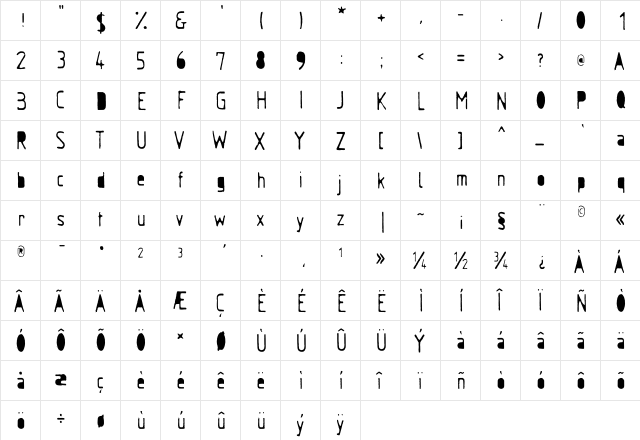
AlphaRuler Bold
Design Context for AlphaRuler Typeface
AlphaRuler takes a measured approach to typography — its balanced proportions and neutral character make it a reliable workhorse for both digital and print work. Its bold stroke weight gives it real presence on the page.